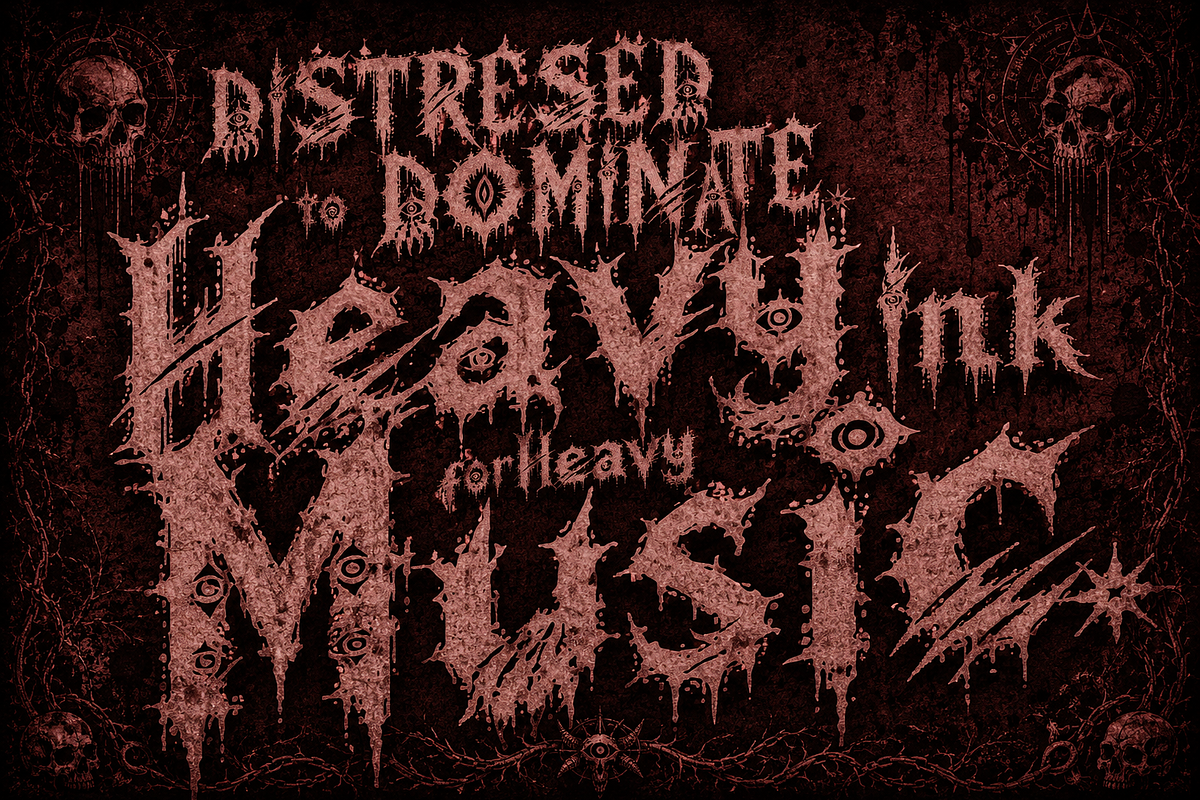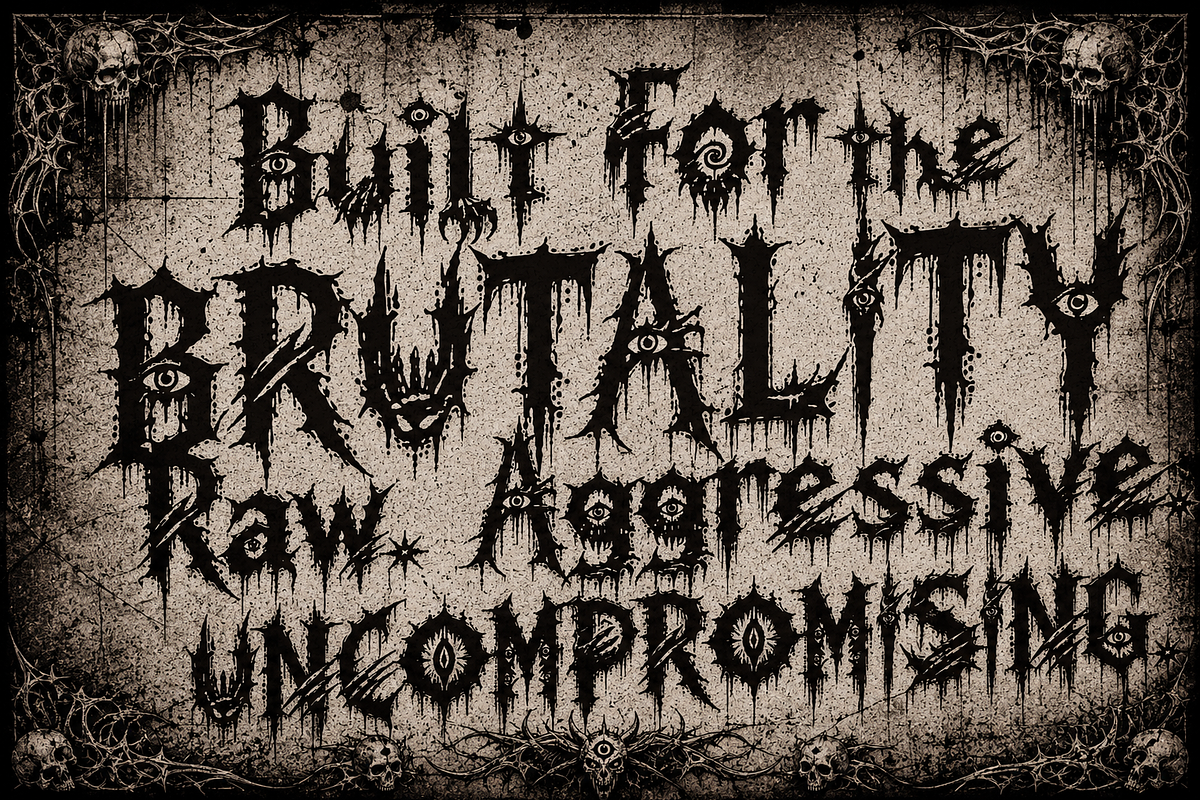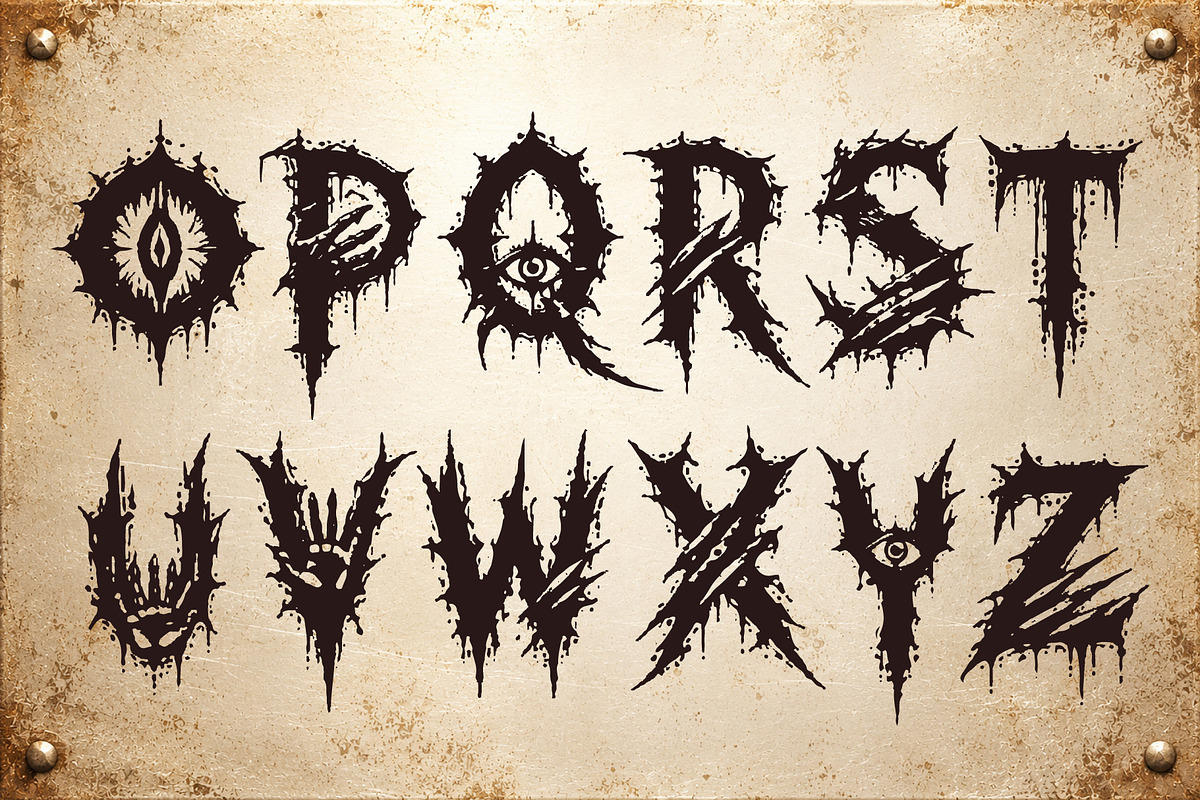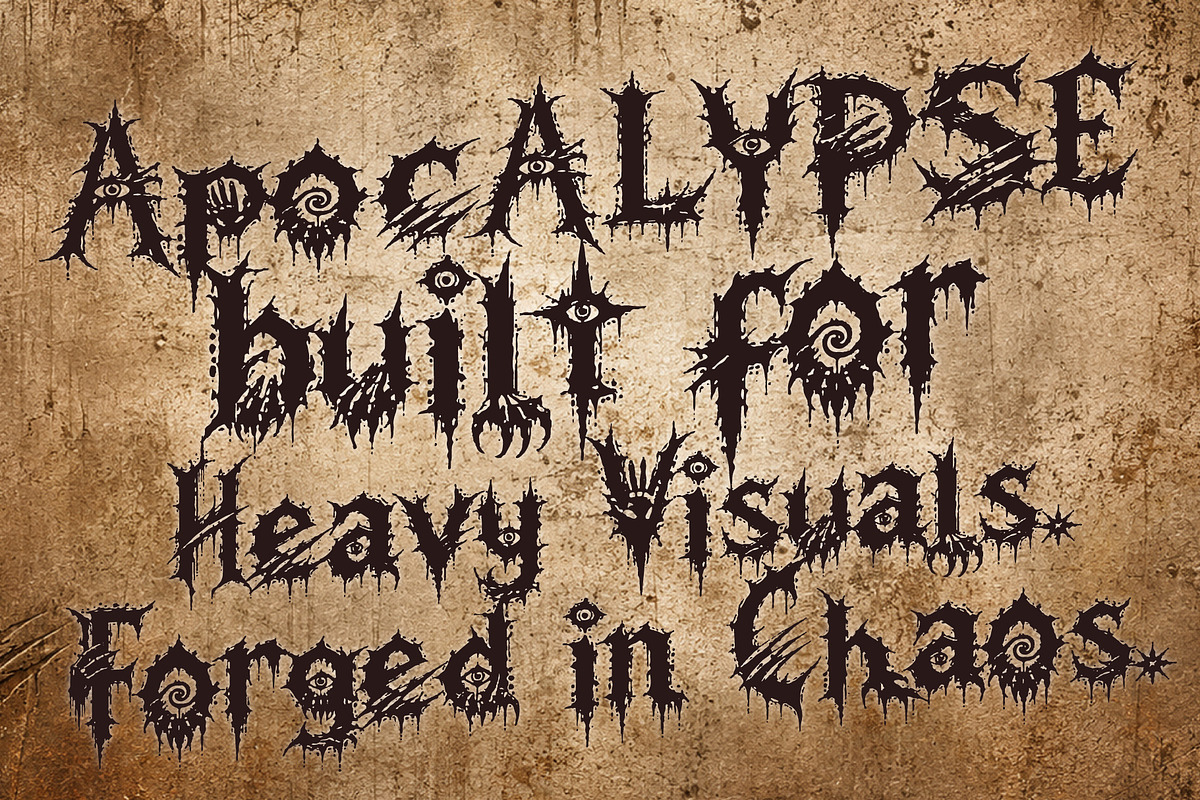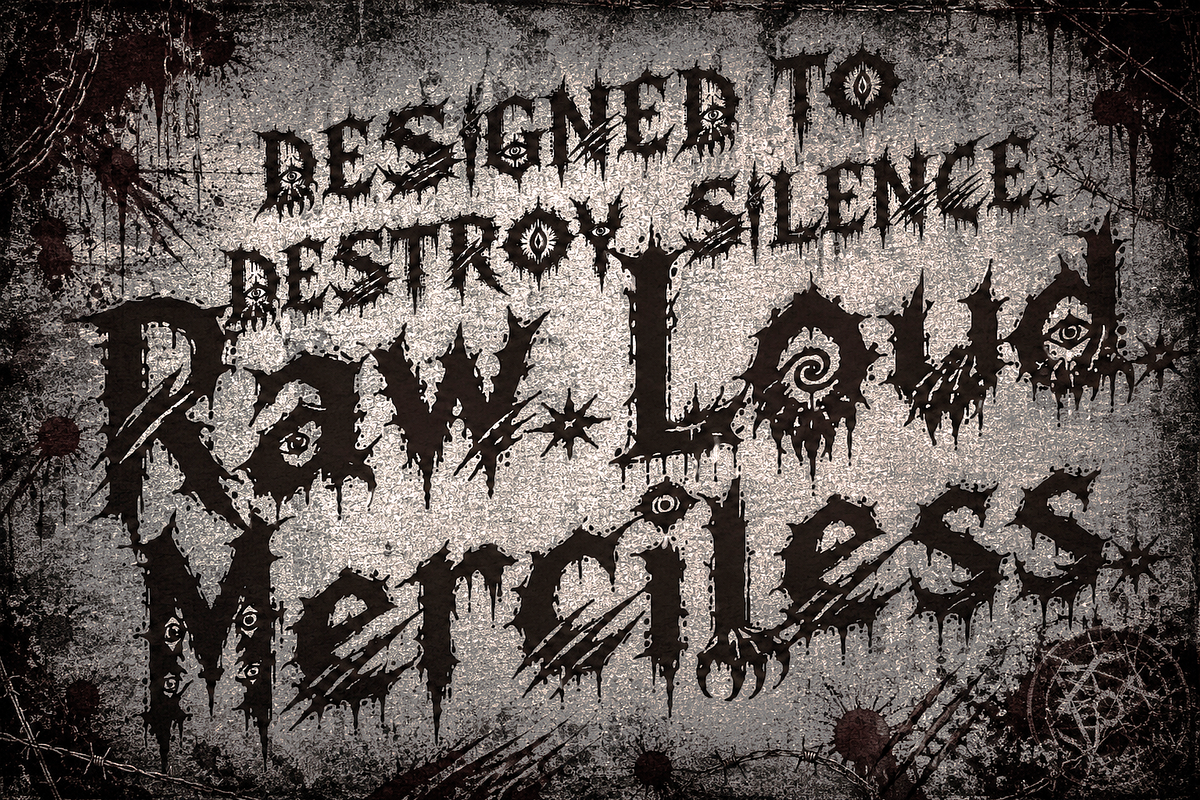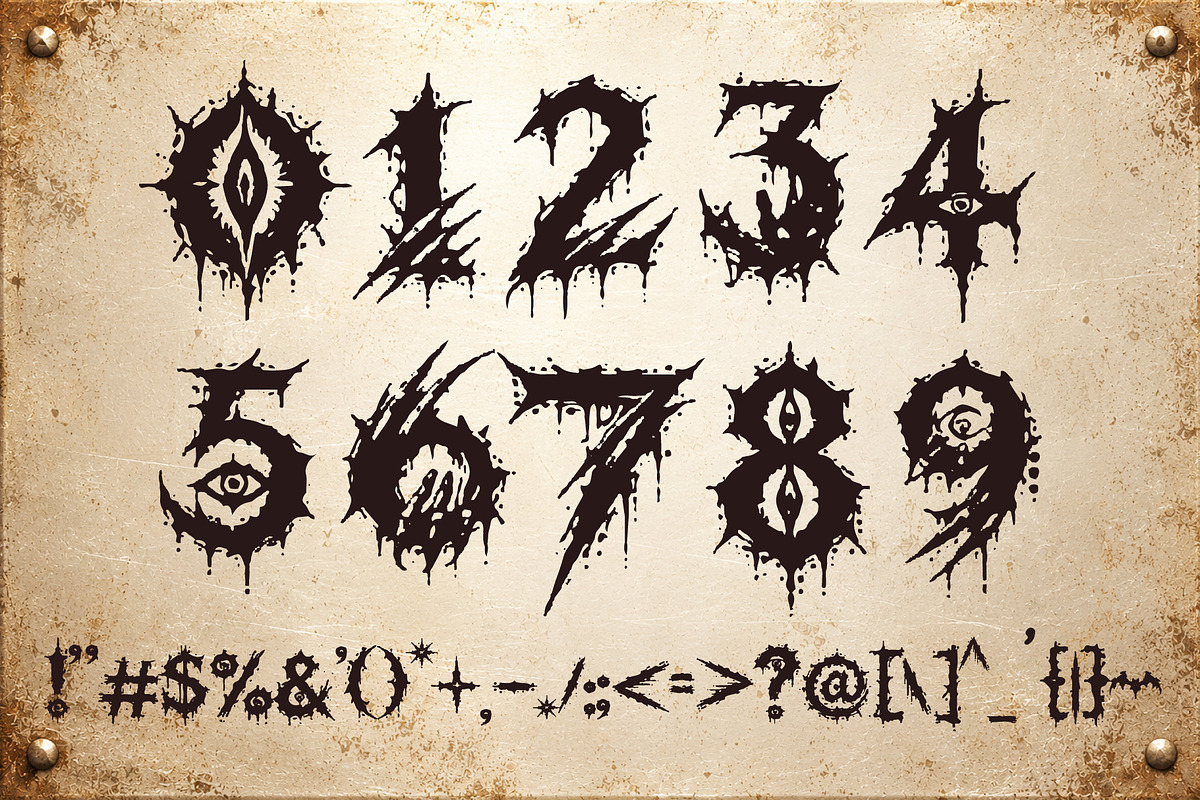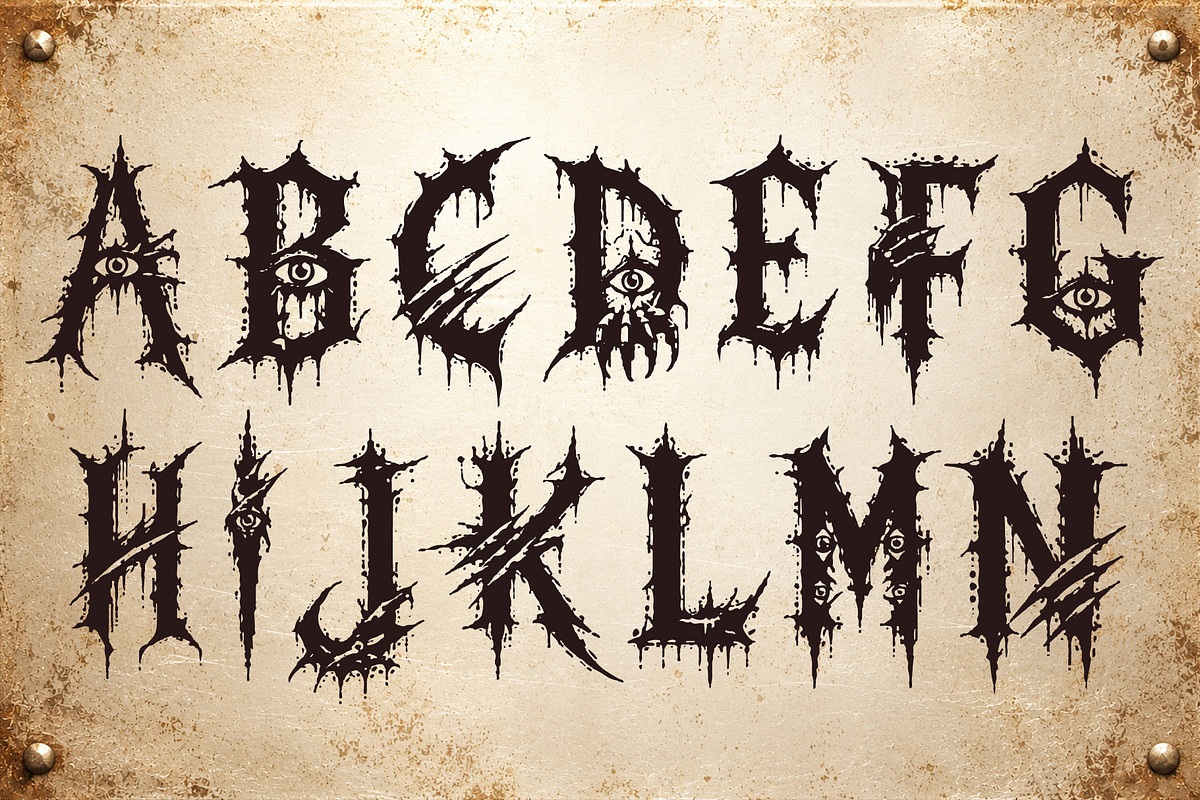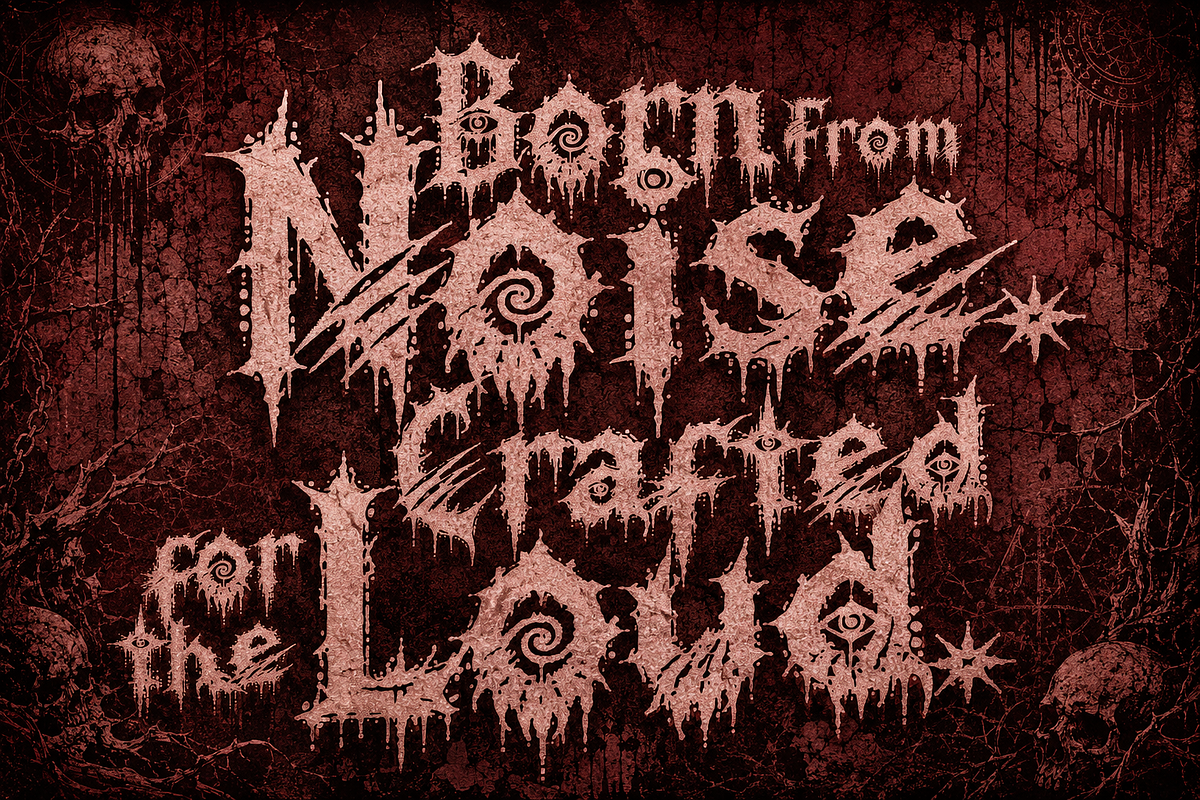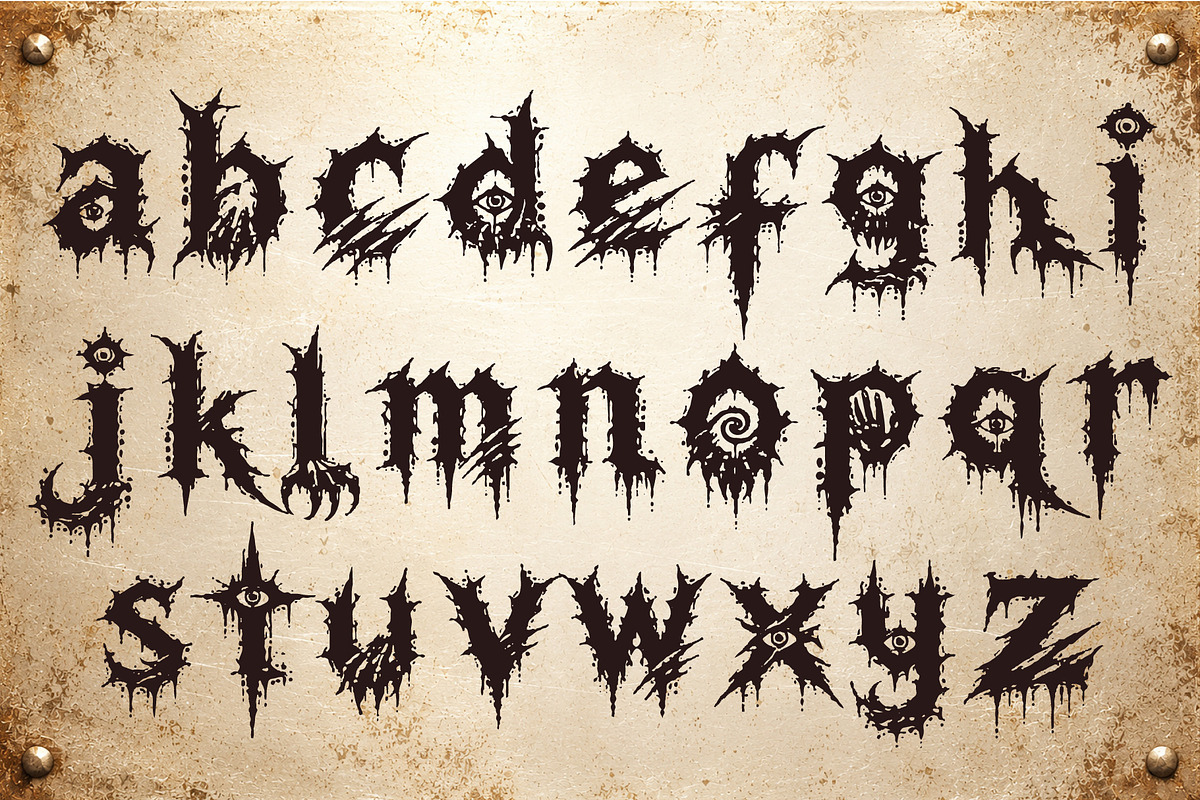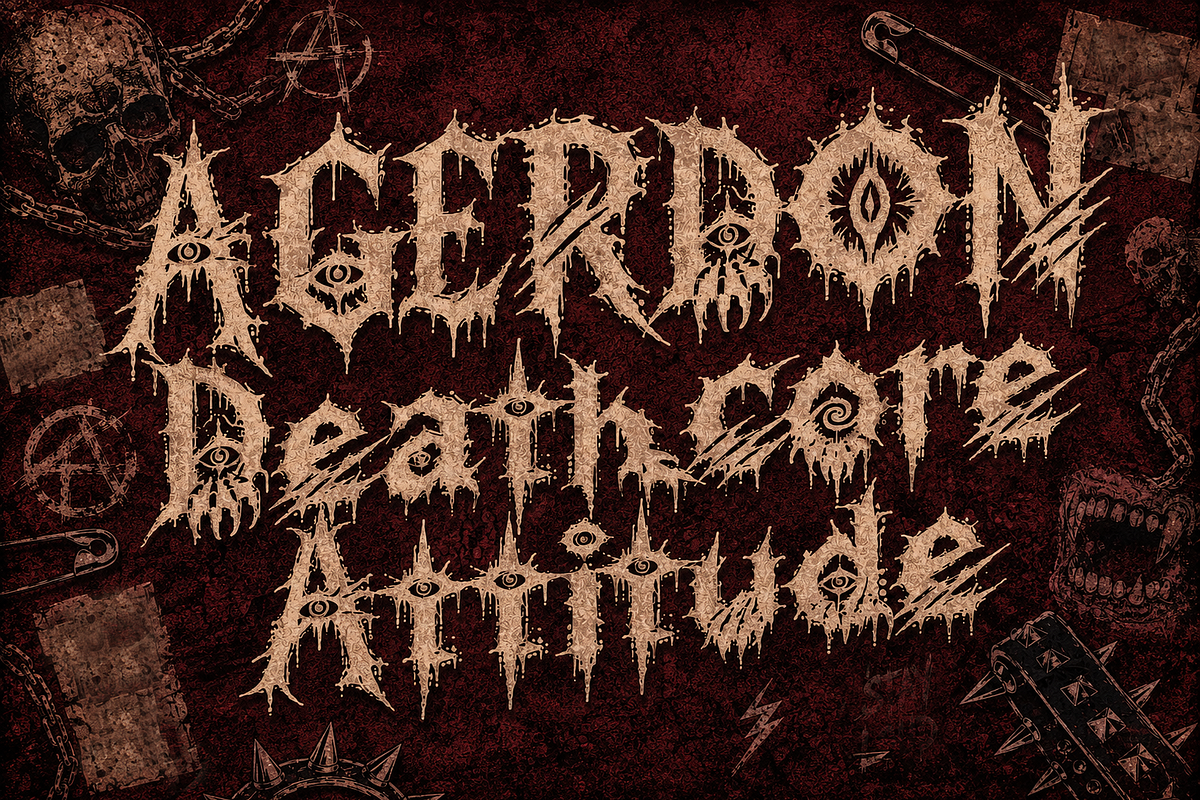
AGERDON - Brutal Grunge Core
Unleash pure sonic destruction with AGERDON a brutal grunge metal script typeface forged from chaos, distortion, and raw underground energy. Inspired by deathcore, hardcore, black metal aesthetics, horror artwork, and distressed hand lettering, every character feels aggressive, unpredictable, and unapologetically loud.
Featuring jagged strokes, rough textures, ink splatters, and chaotic curves, this font is perfect for projects that demand an intense visual impact. Whether you're creating album artwork, band logos, festival posters, merchandise, gaming graphics, horror branding, or streetwear designs, AGERDON delivers a fierce, handcrafted attitude.
Designed to capture the spirit of underground music culture while remaining readable enough for impactful titles, this typeface brings authentic grit to every composition.
Metal & Deathcore Band Logos
Album Covers
Concert & Festival Posters
Horror Movie Titles
Streetwear & Clothing Brands
Tattoo Designs
Gaming & Esports Graphics
YouTube Thumbnails
Dark Branding
Stickers & Decals